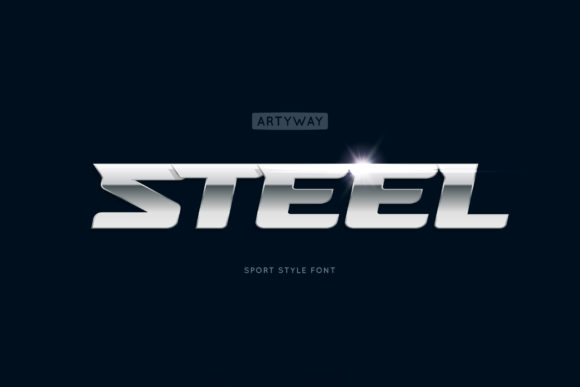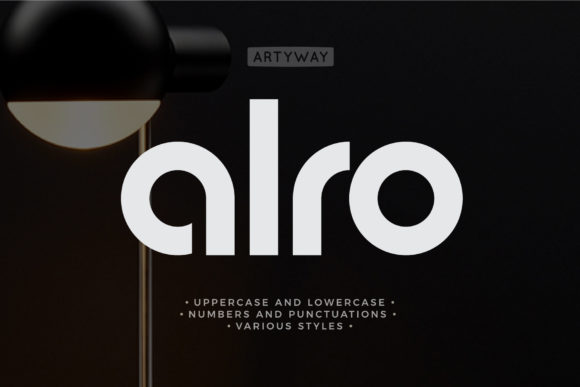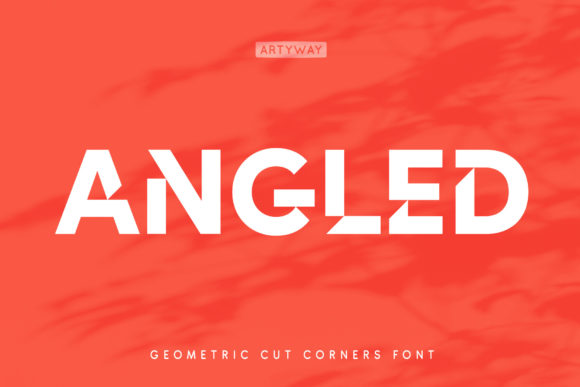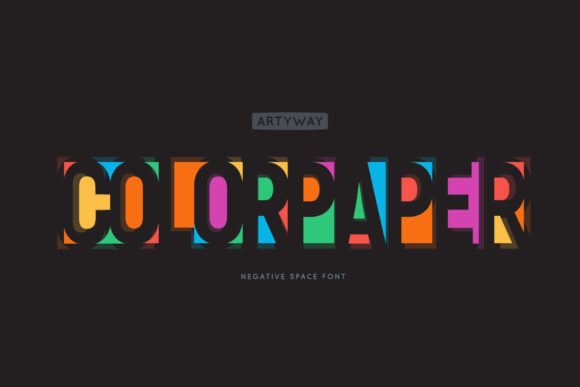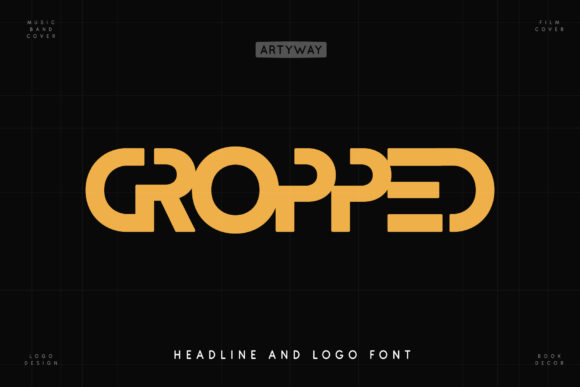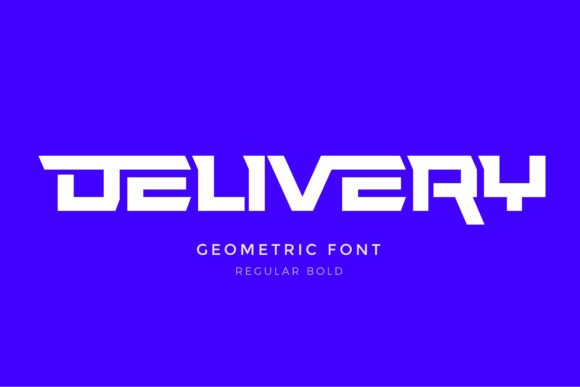
The Perfect Font for Your Next Big Design
You’ve spent hours brainstorming ideas, sketching out concepts, and refining your design. The final touches are in place, and all that’s left is to add the perfect font. It’s the moment of truth – the moment when your design goes from good to great.
Enter the Bestseller Bundle Font, a stunning collection of display fonts designed to make your headlines and logos stand out. With its sleek, modern aesthetic, this font is perfect for technological products, sports, games, and more. Whether you’re creating a bold new logo or a eye-catching T-shirt design, the Bestseller Bundle Font is sure to elevate your work and make it truly unforgettable.
Bestseller Bundle Font Key Features
- Font Family: Bestseller Bundle is a comprehensive font family that includes 6 fonts (Bestseller, Bestseller Condensed, Bestseller Display, Bestseller Italic, Bestseller Outline, and Bestseller Shadow) to cater to various design needs.
- Character Count: Each font contains over 200 glyphs, including Latin, Cyrillic, and Greek alphabets, making it suitable for multilingual designs.
- Unique Characteristics: Bestseller Bundle features a modern, clean, and elegant design aesthetic with subtle rounded edges, making it perfect for creating eye-catching headlines, titles, and logos.
Designer Review: Bestseller Bundle Font
I recently had the chance to work with the Bestseller Bundle Font, and I must say it’s a solid choice for most projects. Here’s my honest take.
- Wide range of styles: The bundle includes a variety of font styles, from bold and playful to elegant and sophisticated, which makes it suitable for a wide range of projects.
- High-quality glyphs: The font includes a wide range of glyphs, including international characters, which is great for designers who work with global clients.
- Easy to read: The font is well-designed and easy to read, even at small font sizes.
Overall, the Bestseller Bundle Font is a solid choice for designers who need a versatile and high-quality font. While it has some limitations, the benefits far outweigh the drawbacks. I would recommend it to designers who need a font that can handle a wide range of projects and clients.
Getting the Most Out of the Bestseller Bundle Font
To get the most out of the Bestseller Bundle Font, use it for:
- Book titles and author names
- Headings and subheadings
The Bestseller Bundle Font is ideal for:
- Book covers and publishing materials
- Business and marketing materials
- Wedding invitations and event materials